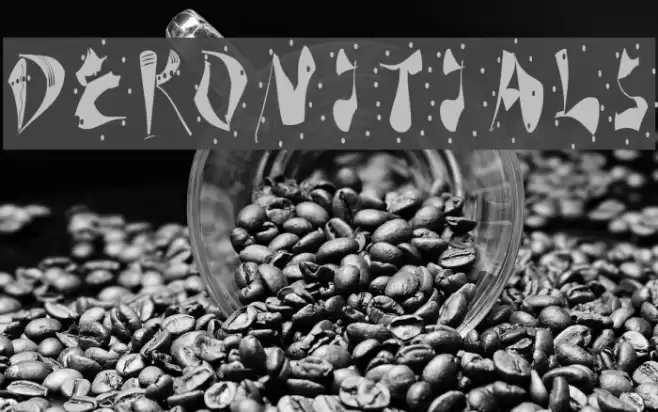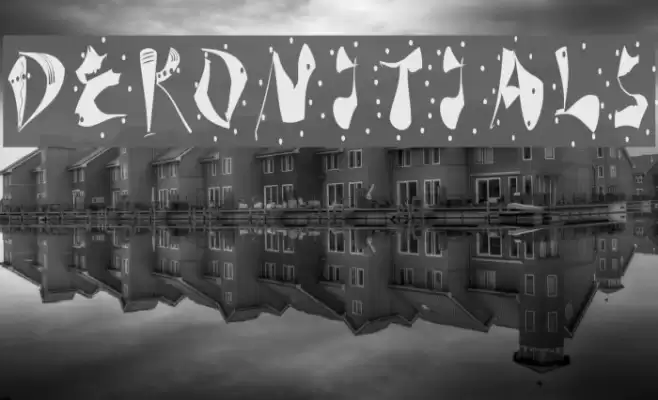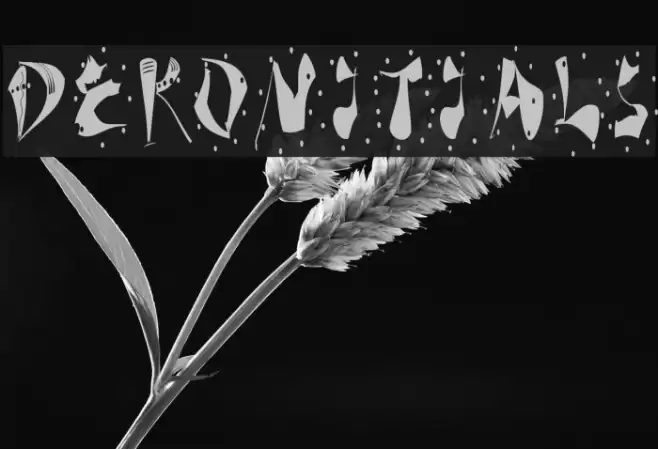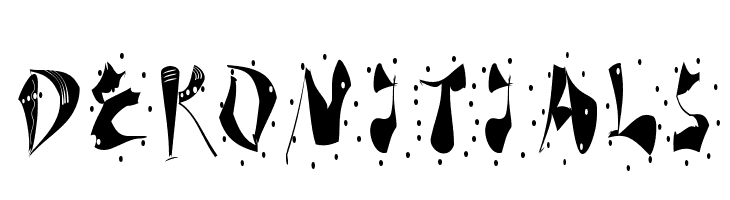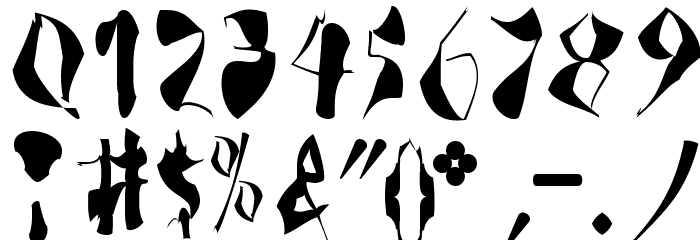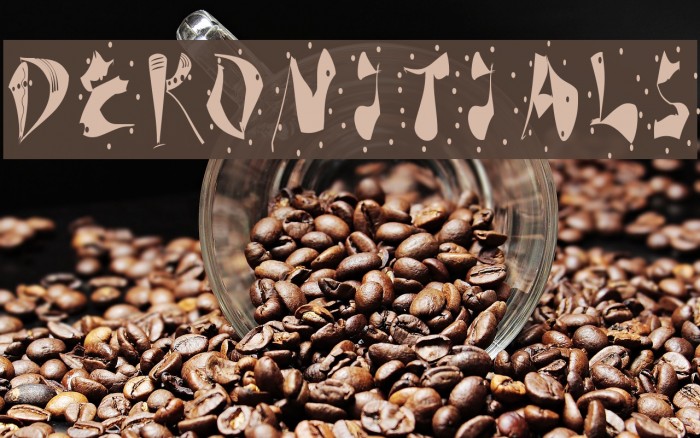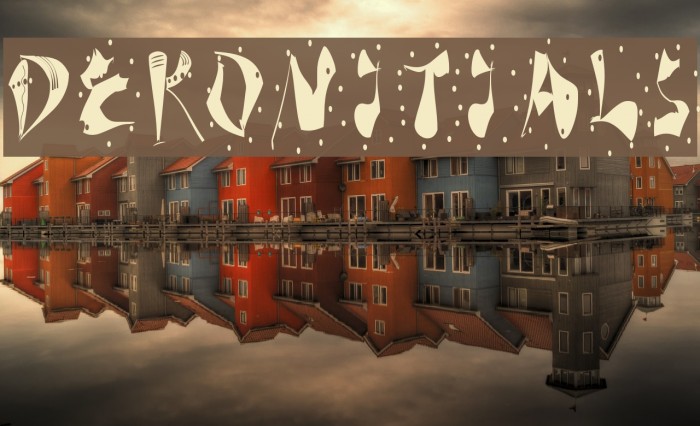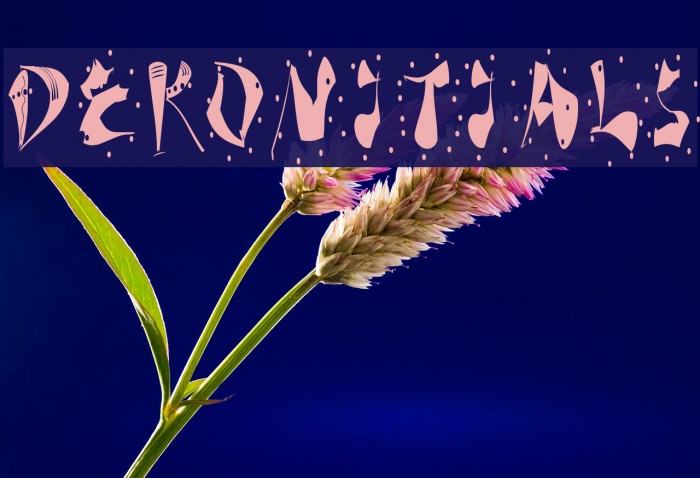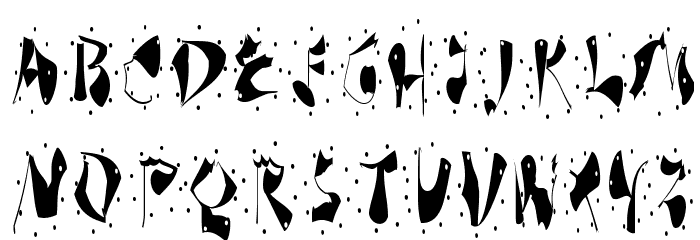
DeKonitials Font
DeKonitials Description
This font is a highly decorative and artistic typeface, featuring intricate and abstract designs within each character. The letters are characterized by bold, irregular shapes with unique patterns and textures, giving them a dynamic and expressive appearance. The font includes a mix of sharp angles and smooth curves, creating a sense of movement and energy. Each character seems to be a piece of art, with varying line thicknesses and creative embellishments that make it stand out. The overall style is avant-garde and experimental, suitable for projects that require a strong visual impact.
An artistic and decorative font with abstract, bold designs and unique patterns from Uncategorized fonts.
- Proposed Projects: Ideal for artistic posters, album covers, creative branding, and any project that requires a bold, artistic statement.
- Overall Style: Avant-garde, Artistic
- Use Case: Logos, Posters, Album covers